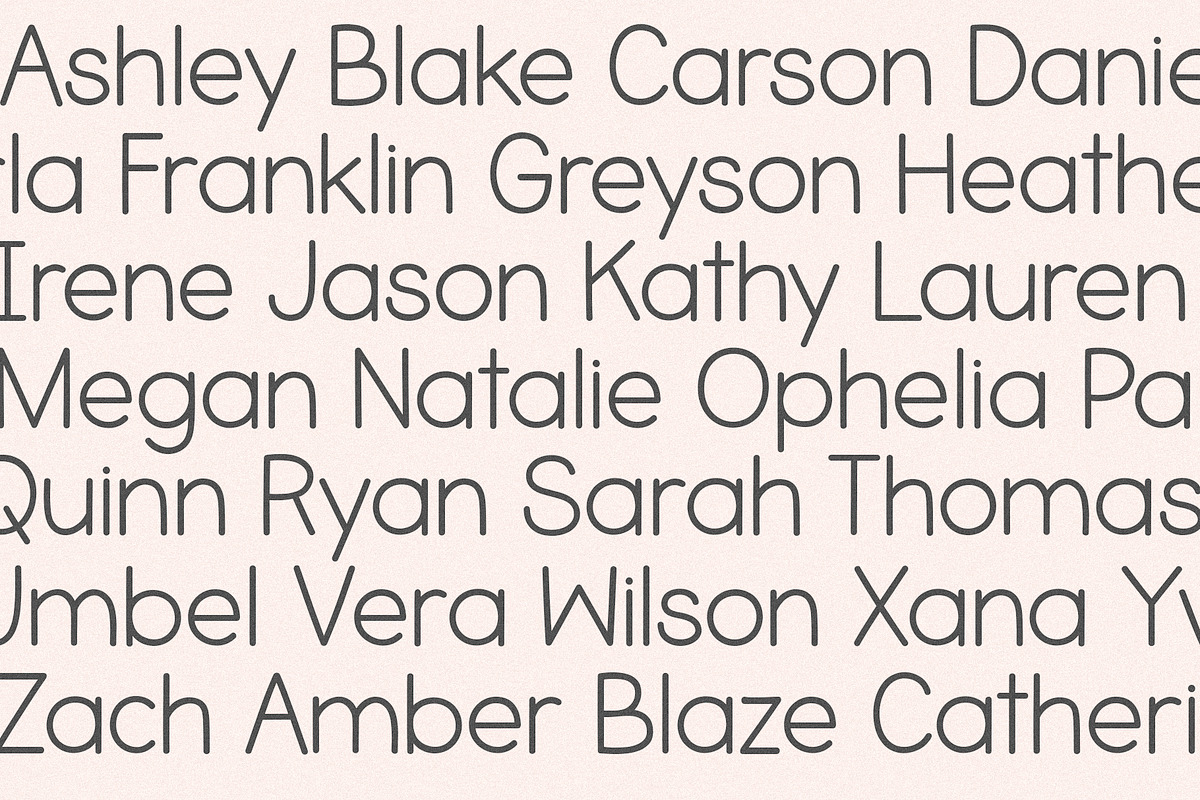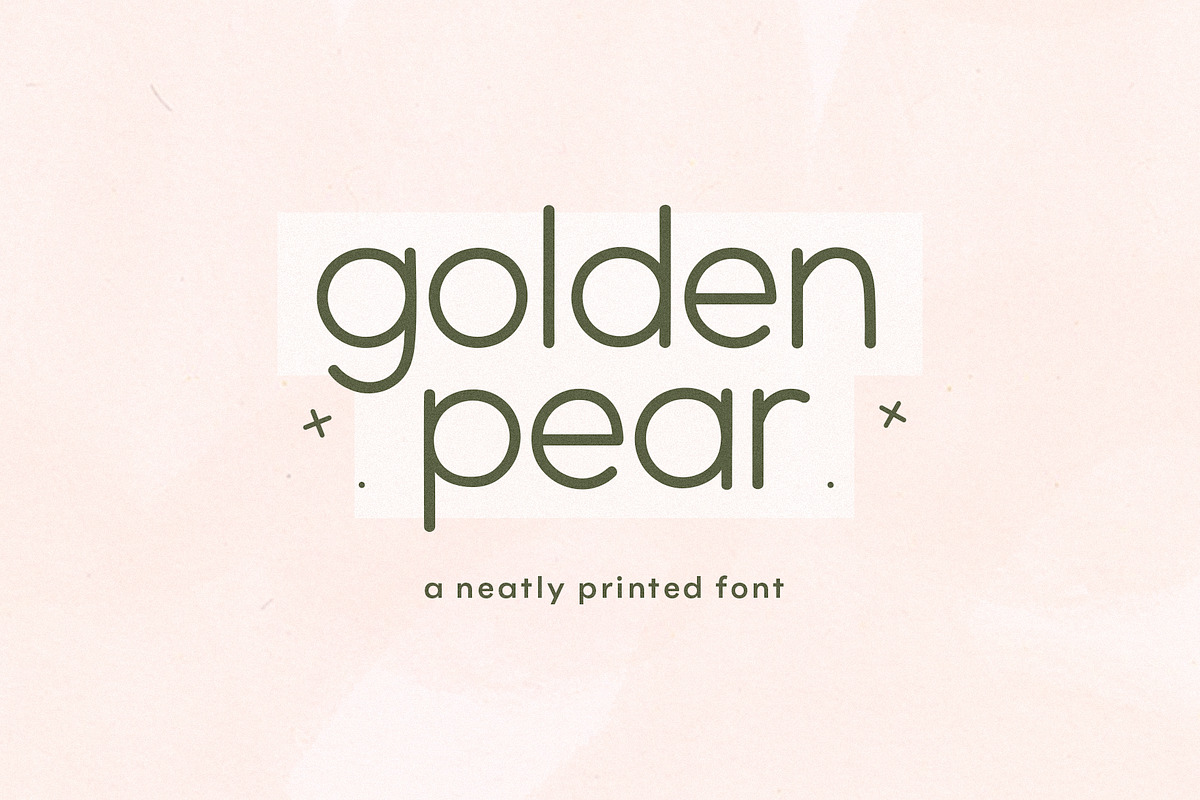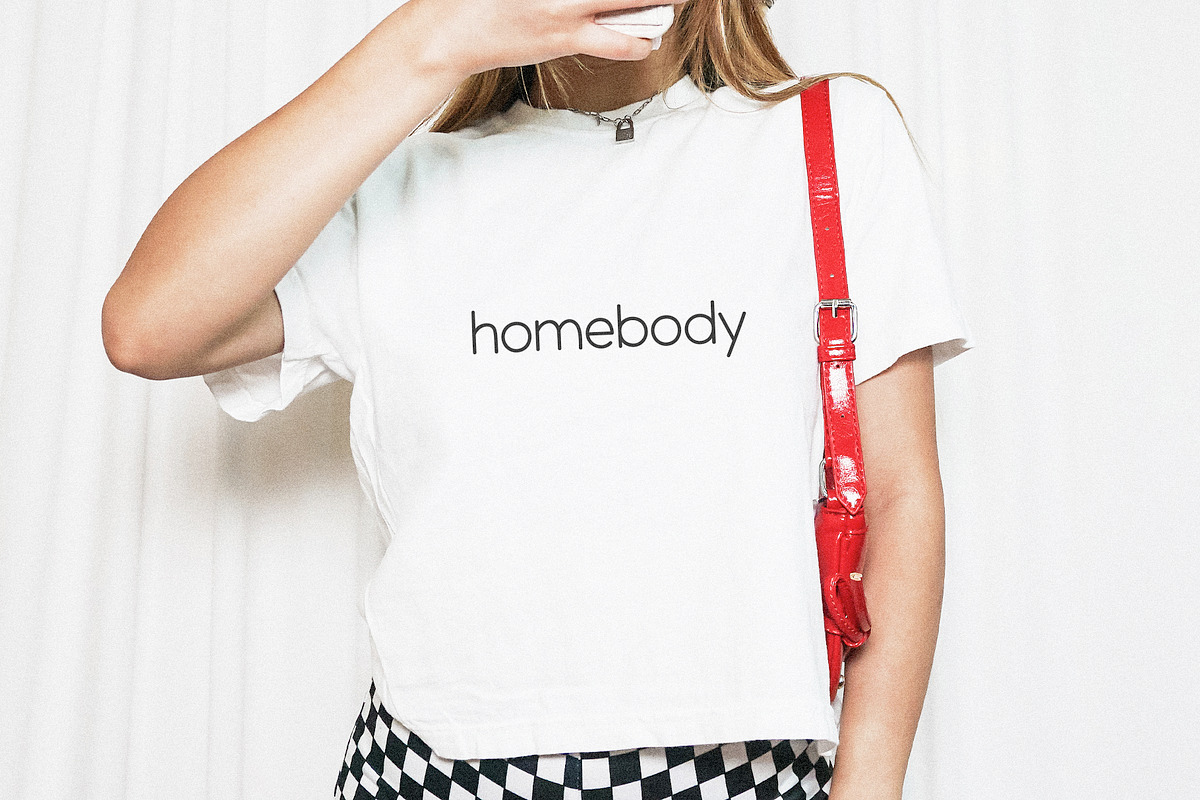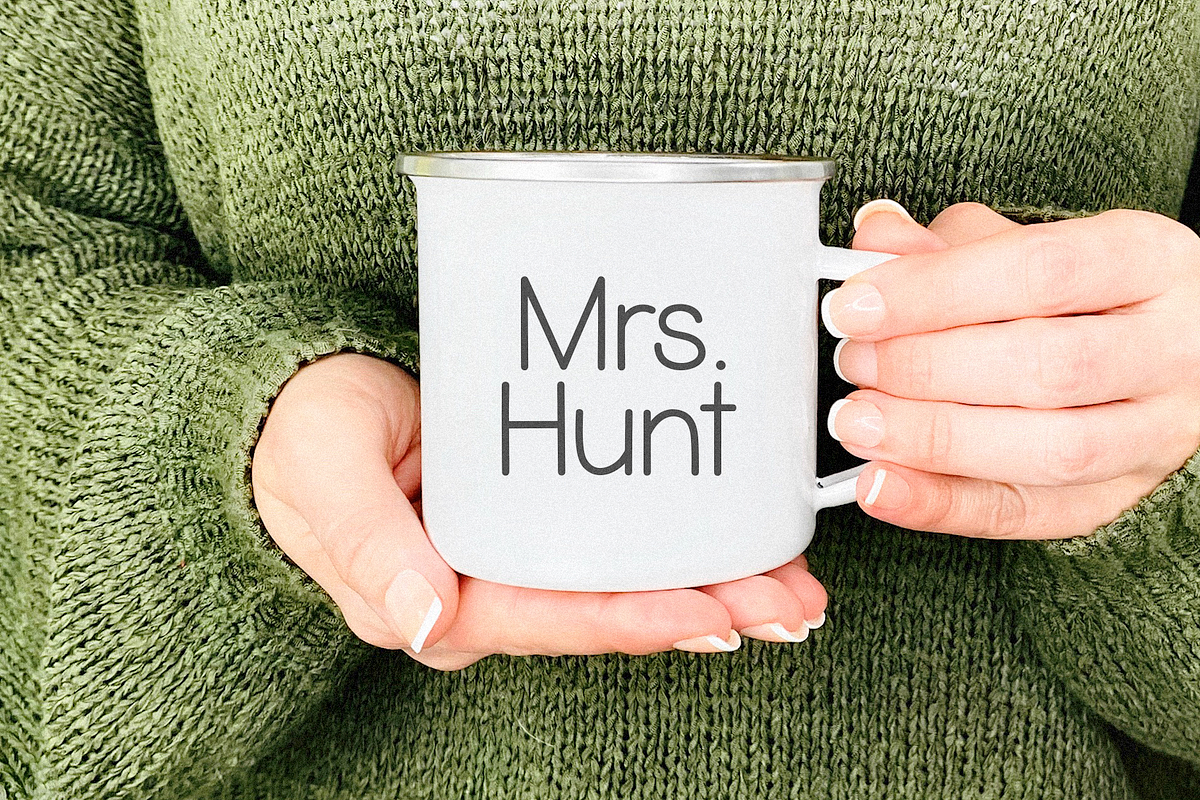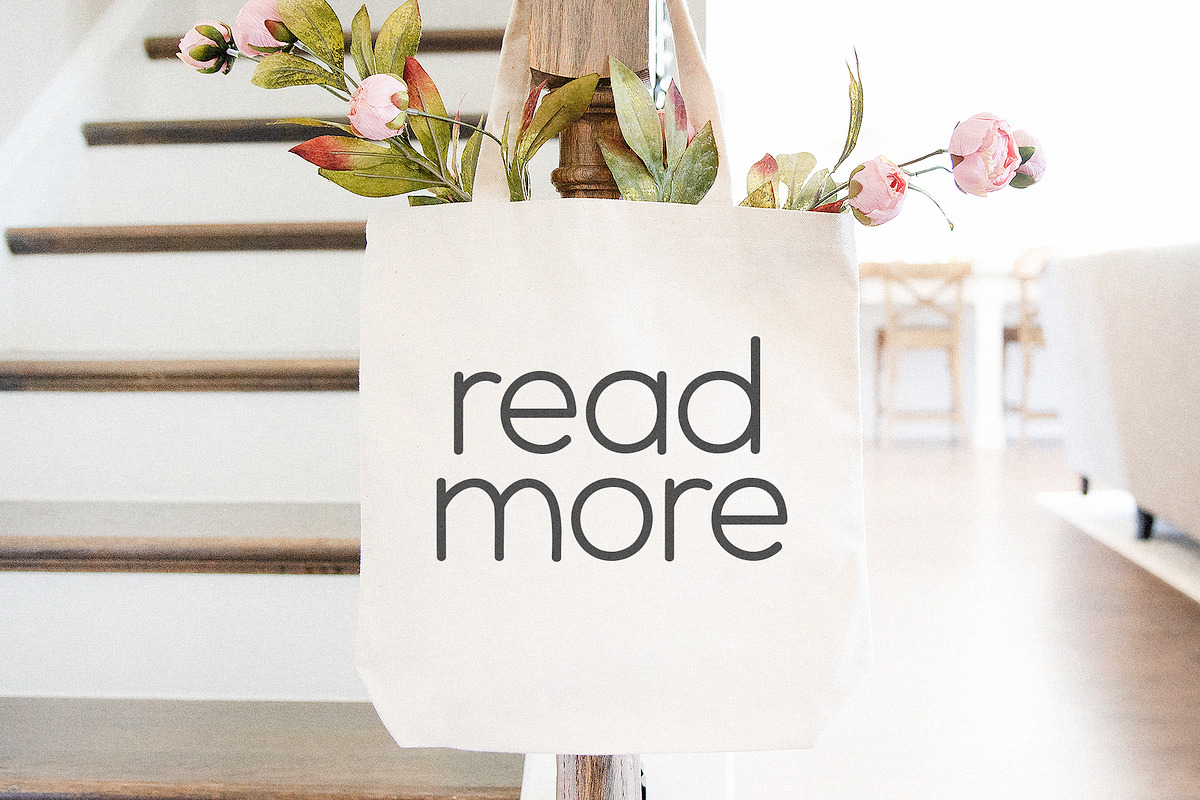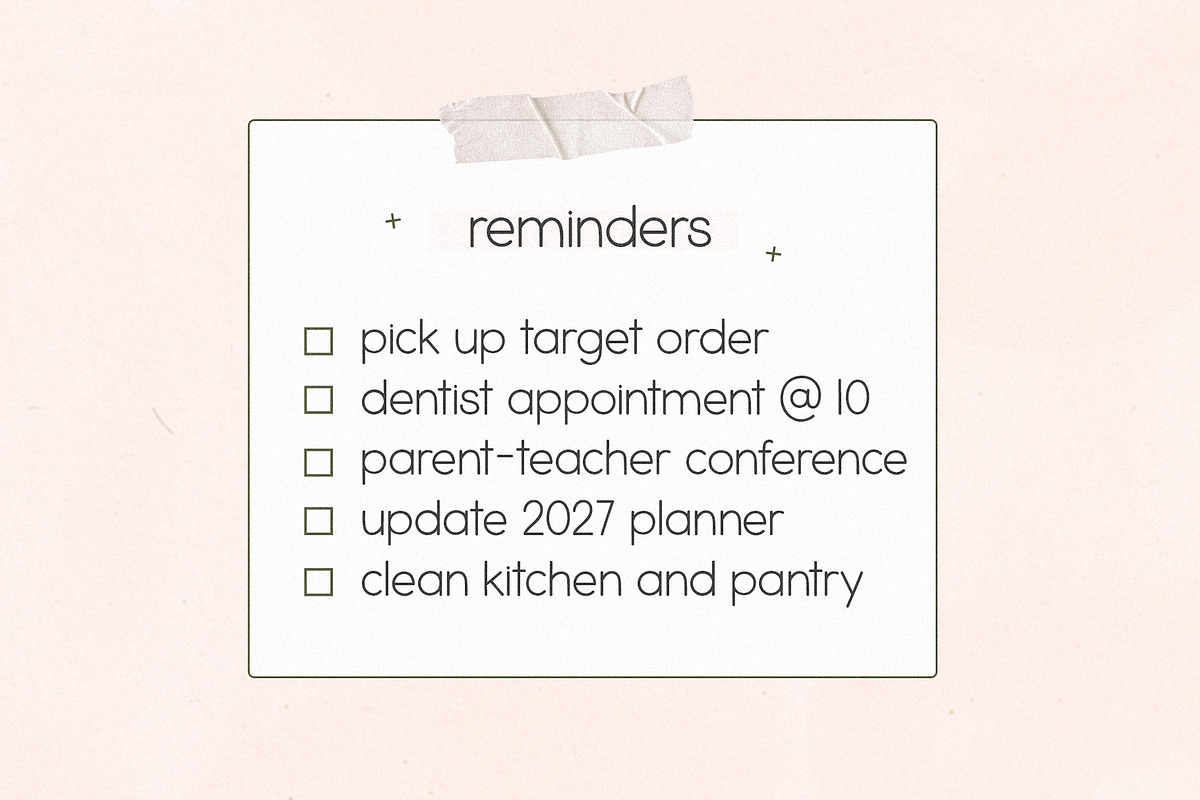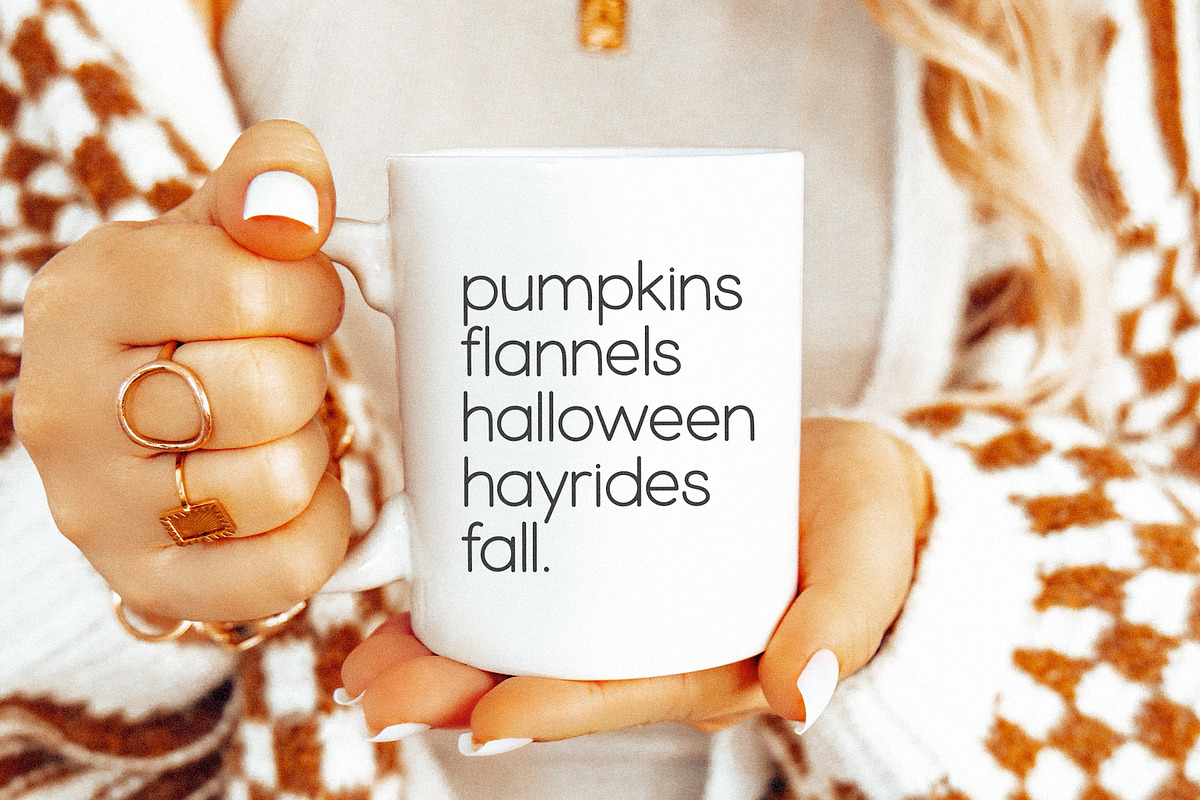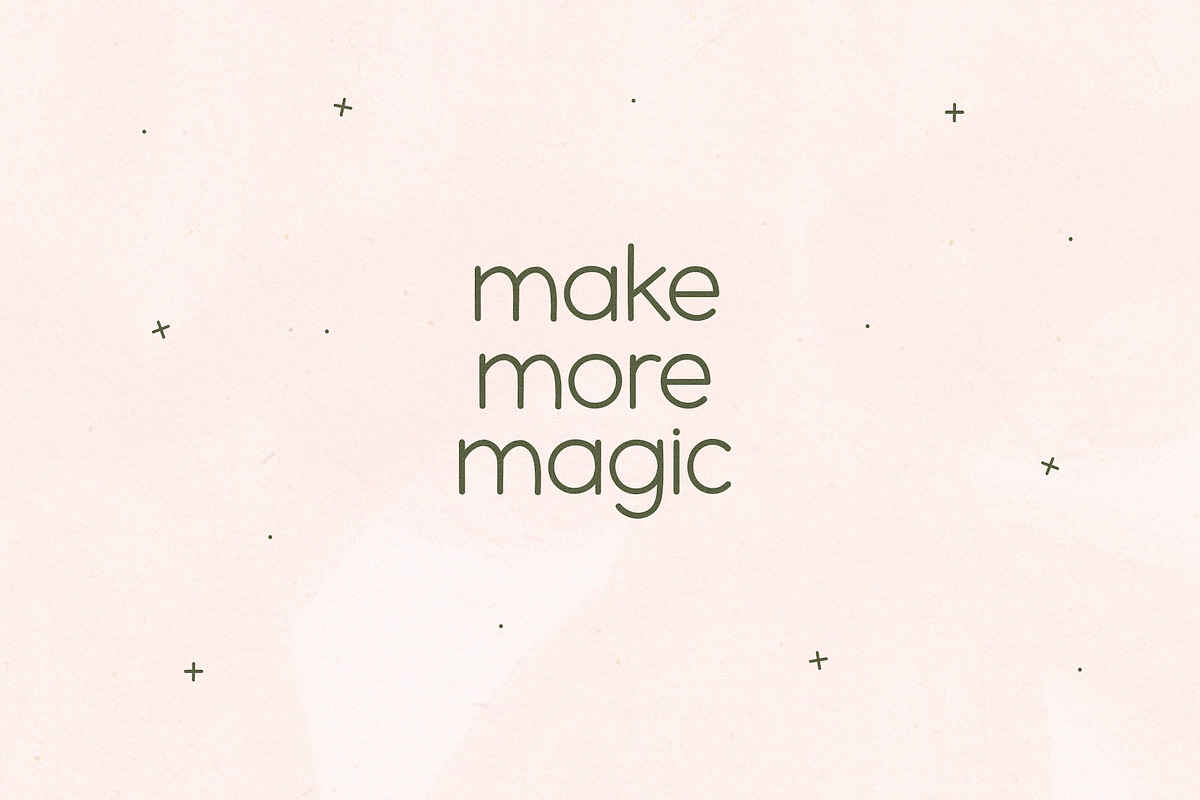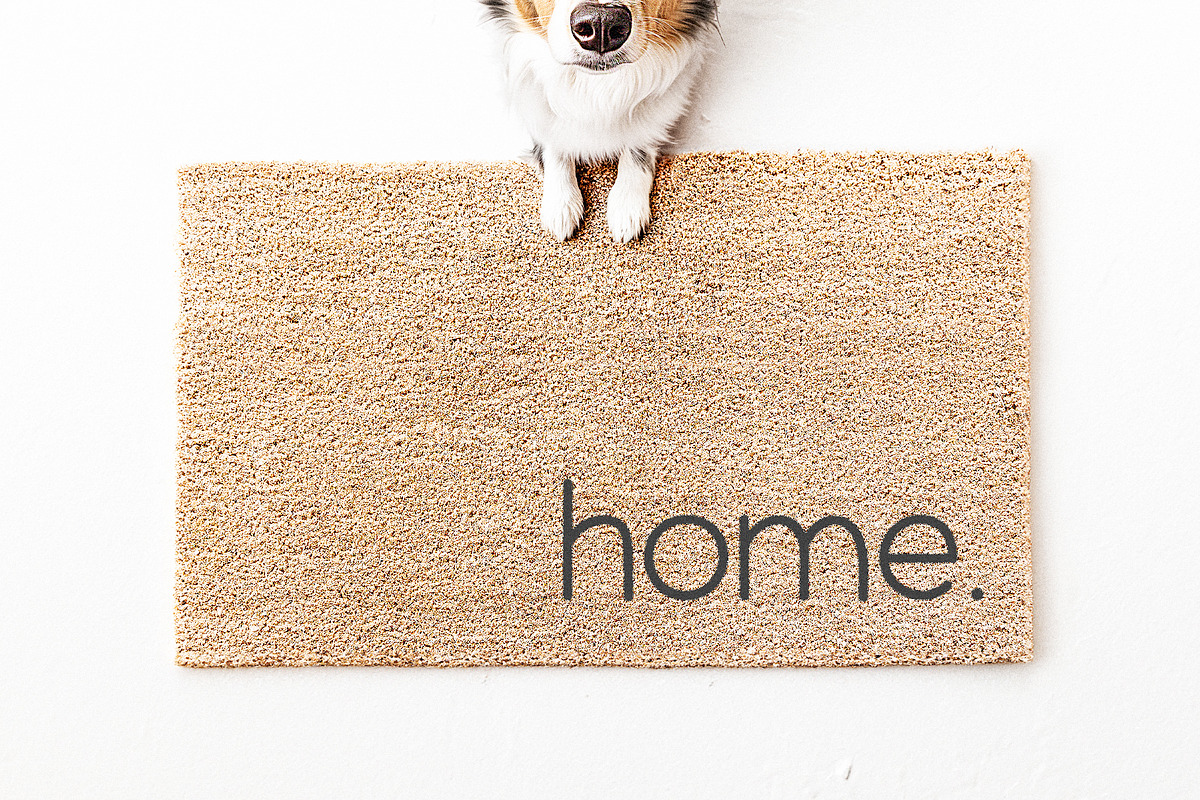
Golden Pear | Cute Sans Font
Golden Pear is a cute printed font.
This font is perfect for planners, goodnotes, logos, teachers, cricut, canva, painted banners, notes, easy to read text and more!